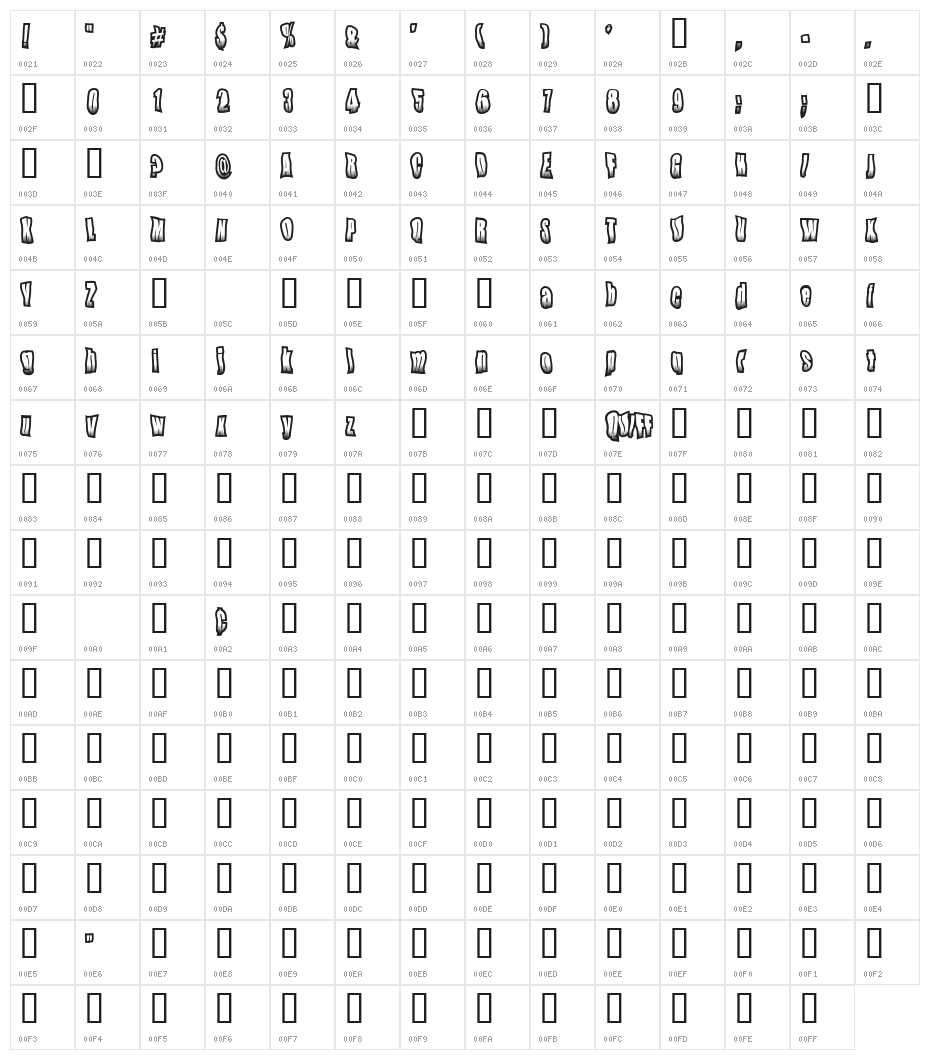
Quiff Font
Quiff Description
This font features a bold and dynamic style with a playful, wavy appearance. The characters are outlined with a thick black stroke, giving them a strong presence. Each letter has a unique, slightly distorted shape, adding a sense of movement and energy. The interior of the characters is filled with a series of vertical lines, creating a textured look that enhances the font's visual interest. This design is eye-catching and suitable for projects that require a fun and engaging typeface.
| Overall Style | Playful, Energetic, Modern |
| Proposed Projects | Ideal for posters, event flyers, children's book covers, and creative branding. |